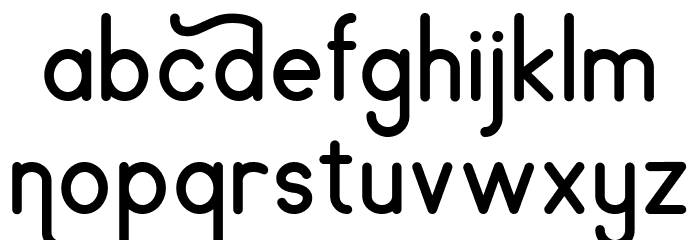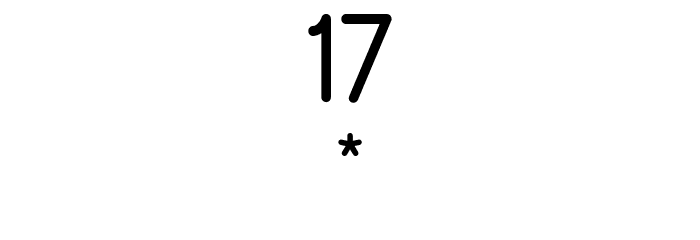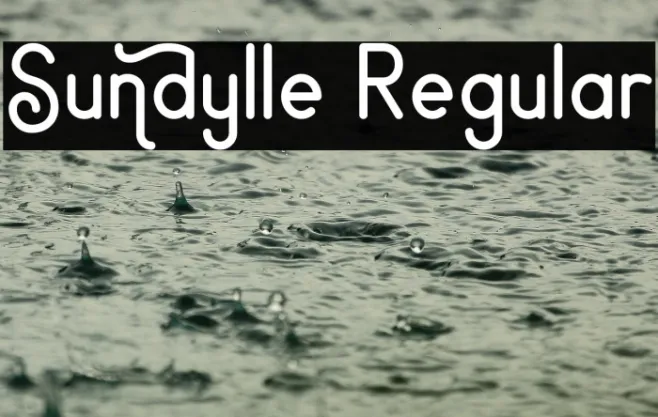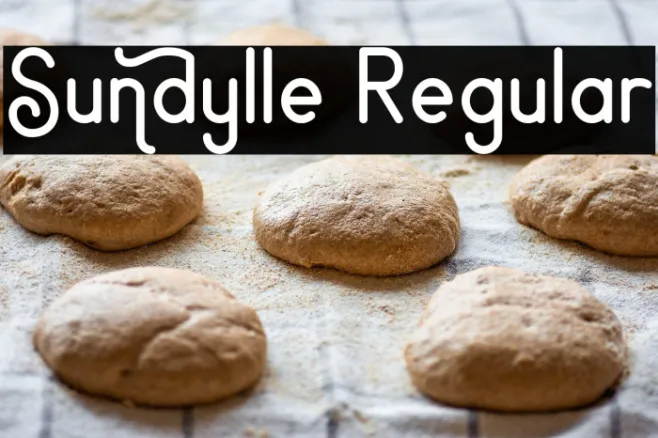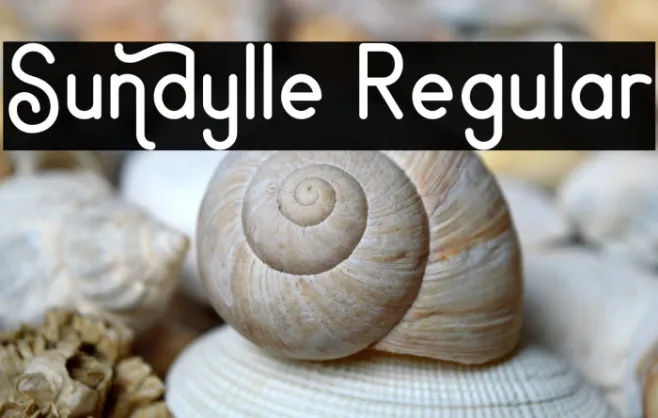
Sundylle Regular Font
This font features a playful and modern design with a clean, rounded appearance. The uppercase letters are bold and well-defined, while the lowercase letters exhibit unique characteristics, such as the distinctive loop on the lowercase 'b' and 'd'. The numerals are straightforward and clear, maintaining the font's overall simplicity. The asterisk is minimalistic, fitting seamlessly with the rest of the characters. This font's smooth curves and consistent stroke width make it highly legible and suitable for a variety of applications.
A playful, modern font with clean, rounded characters and consistent stroke width.
- Proposed Projects: Ideal for children's books, playful branding, modern web design, and casual invitations.
- Use Case: Headlines, Logos, Web design